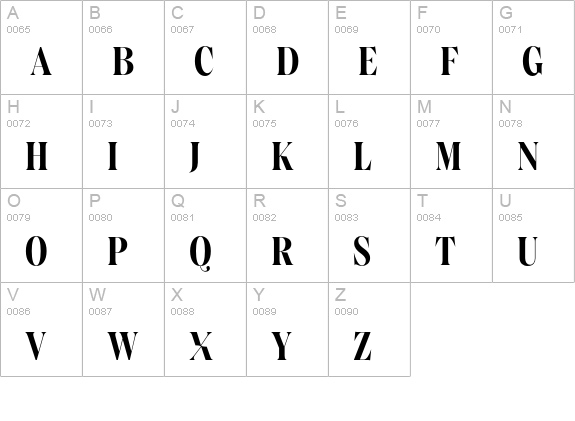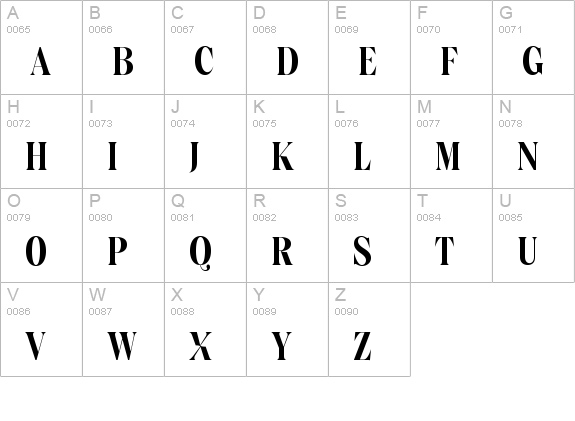
Bolognia Bold is a strong, high-contrast variant in the Bolognia typeface family \xE2\x80\x94 well suited to headlines, attention-grabbing titles, and strong calls-to-action.
Introducing Bolognia Bold - a stunning display font that exudes confidence and elegance. With its strong, bold lines and sleek design, Bolognia Bold is perfect for making a statement in any project. Whether you're designing a logo, poster, or website, this font will surely catch the eye of your audience.